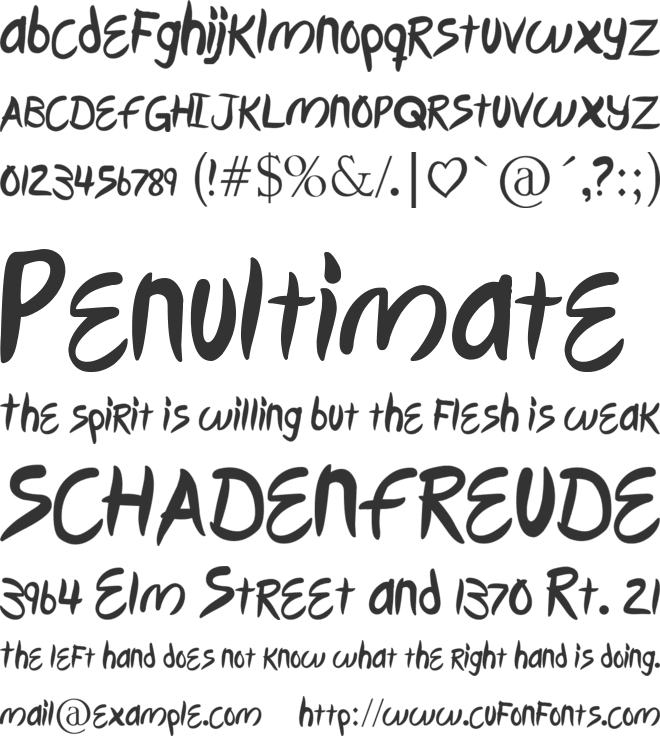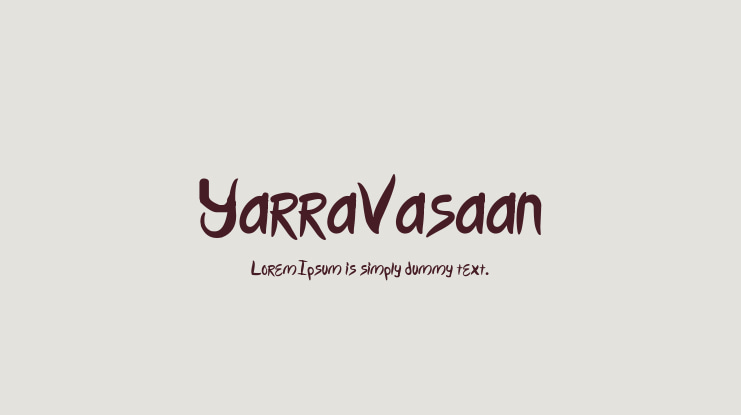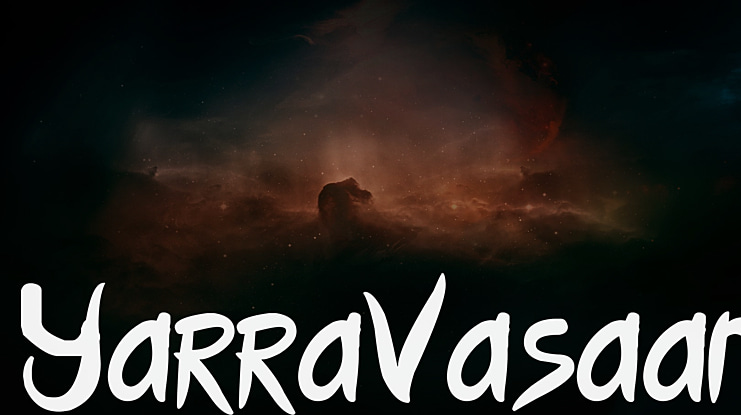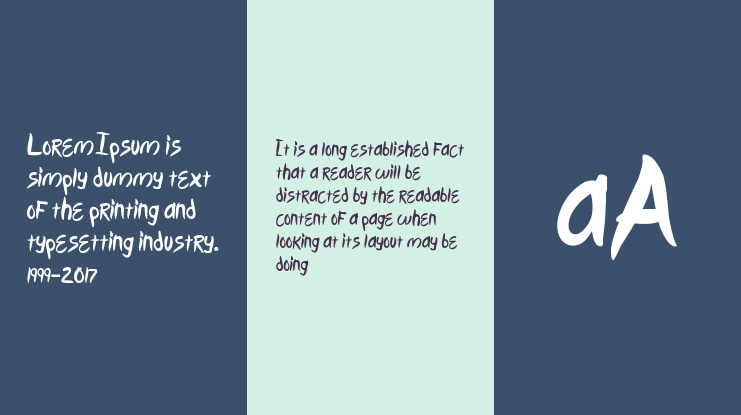
YarraVasaan Font
Font for the Eurovision 2023 Lyrics Text. It's coming on 01/01/23! On the EuroVision '23 intro, (ending of the intro) it will say: Happy New YEAR!